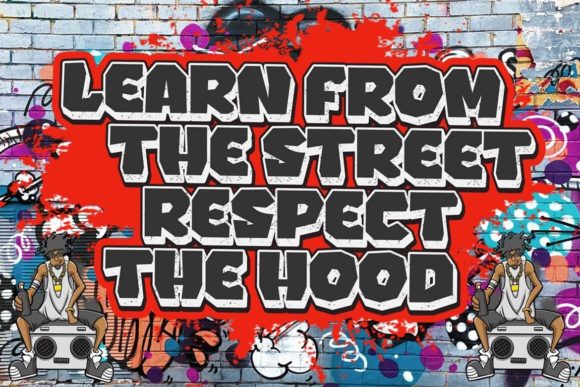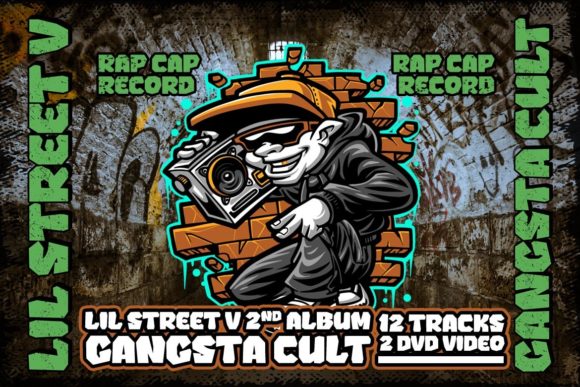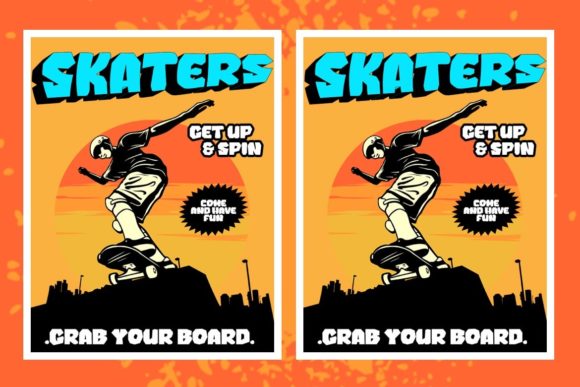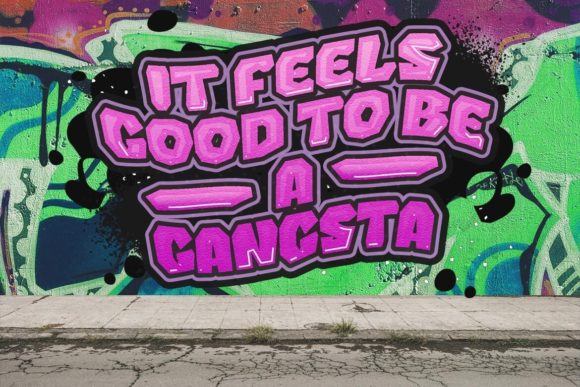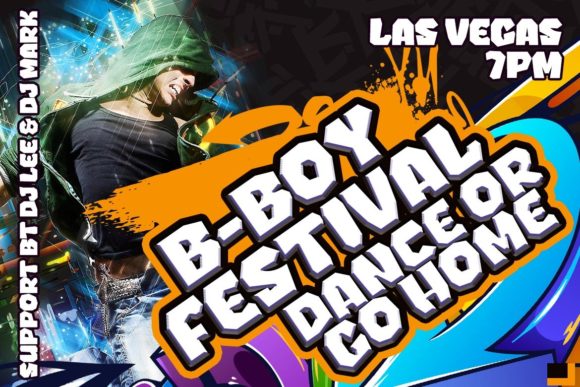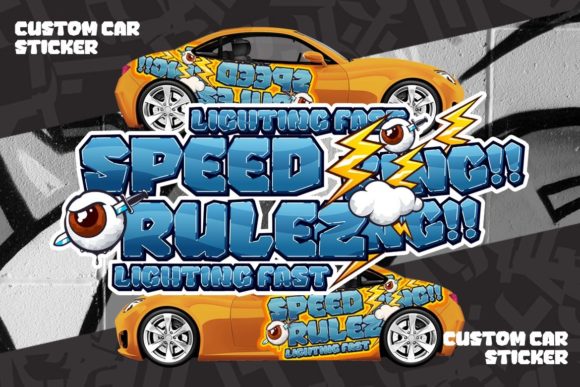
Introducing Bonkard Font: The Ultimate Graffiti Font for Stunning Designs
In the world of typography, a good font can make all the difference in creating visually appealing designs. For designers and crafters looking for a unique and charming font, Bonkard Font is an excellent choice. This graffiti font is carefully crafted to meet all your design requirements, making it perfect for a wide range of projects.
What is Bonkard Font?
Bonkard Font is a thoughtfully designed font that boasts a distinctive graffiti style. Its unique charm and character make it an attractive addition to any design project. Whether you’re working on a logo, poster, headline, or packaging, Bonkard Font is sure to impress. The font’s versatility and aesthetic appeal make it an excellent choice for designers seeking to create flawless and captivating designs.
Key Features of Bonkard Font
- Graffiti Style: Bonkard Font features a bold and expressive graffiti style that adds a touch of urban flair to any design.
- Versatility: This font is perfect for a wide range of design projects, including product logos, poster titles, headlines, packaging, film titles, logotypes, and more.
- Unique Character: Bonkard Font has a distinctive charm that sets it apart from other fonts, making it ideal for designers looking to create one-of-a-kind designs.
Uses of Bonkard Font
Bonkard Font is a versatile font that can be used for a variety of design projects, including:
- Product Logos: Create eye-catching logos that stand out with Bonkard Font’s bold and expressive style.
- Poster Titles: Add a touch of urban flair to your poster titles with this font’s unique graffiti style.
- Headlines: Make your headlines pop with Bonkard Font’s bold and attention-grabbing design.
- Packaging: Use Bonkard Font to create stunning packaging designs that showcase your brand’s personality.
- Film Titles: Add a touch of glamour to your film titles with this font’s elegant and sophisticated design.
- Logotypes: Create custom logotypes that reflect your brand’s unique identity with Bonkard Font.
- Trendy Graffiti Designs: Use Bonkard Font to create trendy graffiti designs that are sure to impress.
Why Choose Bonkard Font?
There are many reasons why designers and crafters should choose Bonkard Font for their design projects. Here are a few:
- Unique Style: Bonkard Font offers a unique graffiti style that sets it apart from other fonts.
- High-Quality Design: This font is carefully crafted to ensure high-quality design and attention to detail.
- Versatility: Bonkard Font can be used for a wide range of design projects, making it a valuable addition to any designer’s toolkit.